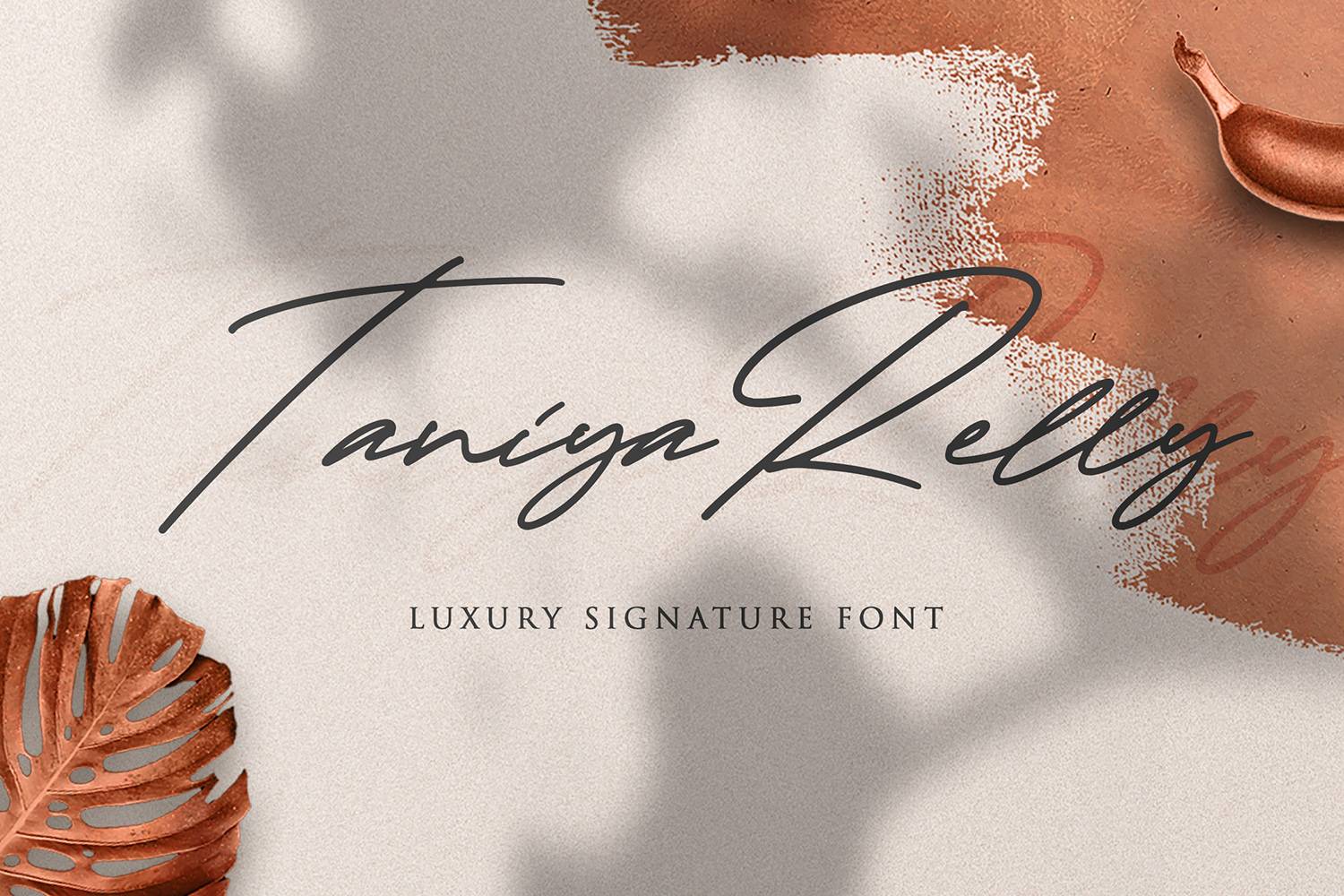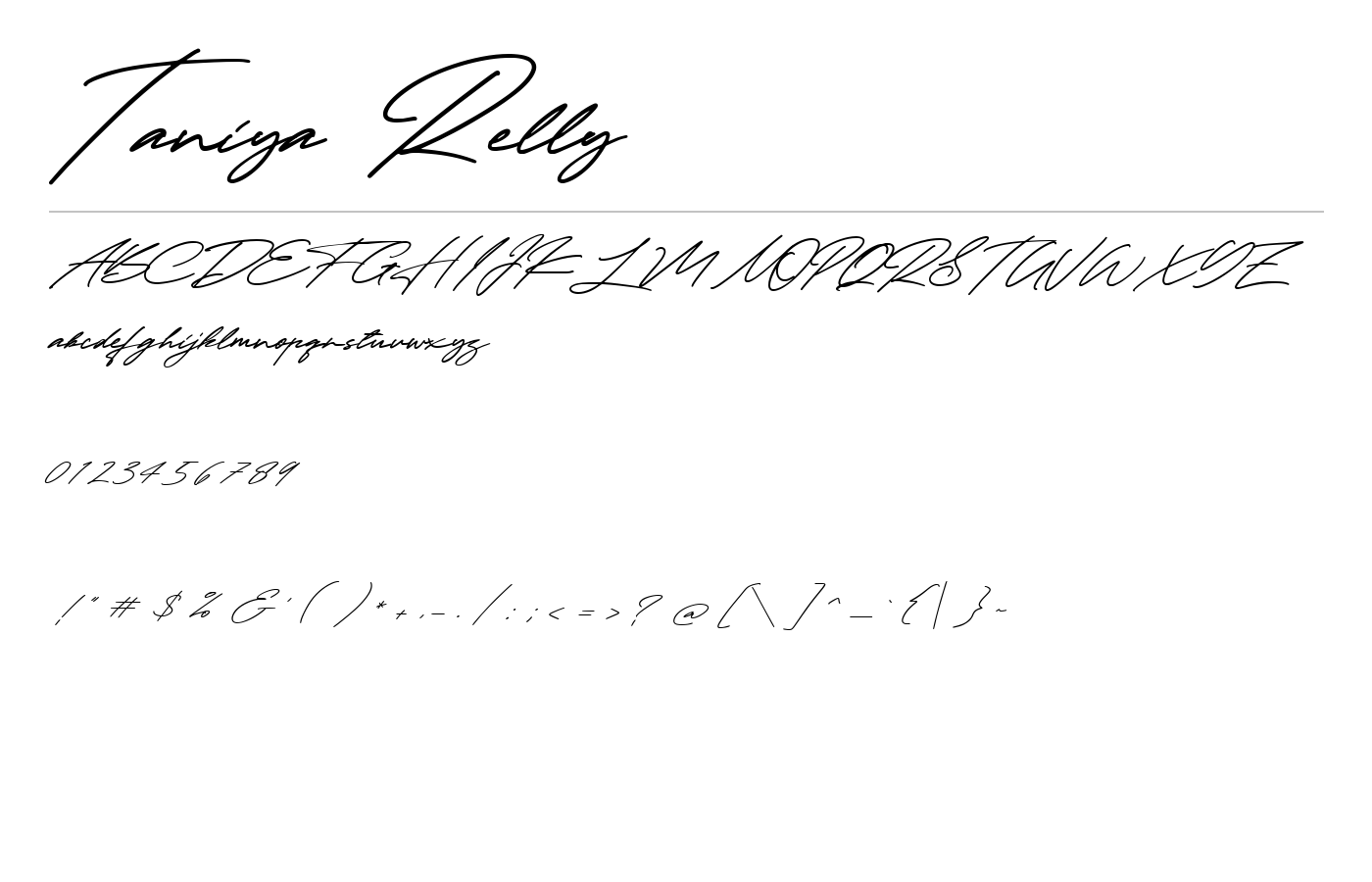
Taniya Relly is an elegant, thin script font that mimics natural handwriting with a flowing, slightly slanted style and delicate strokes. Its high contrast and airy letter spacing give it a refined, personal touch, making it ideal for luxury branding, invitations, and creative headlines where a sophisticated yet approachable feel is desired. This font works beautifully in contexts that seek to convey elegance and individuality with a modern, stylish flair.